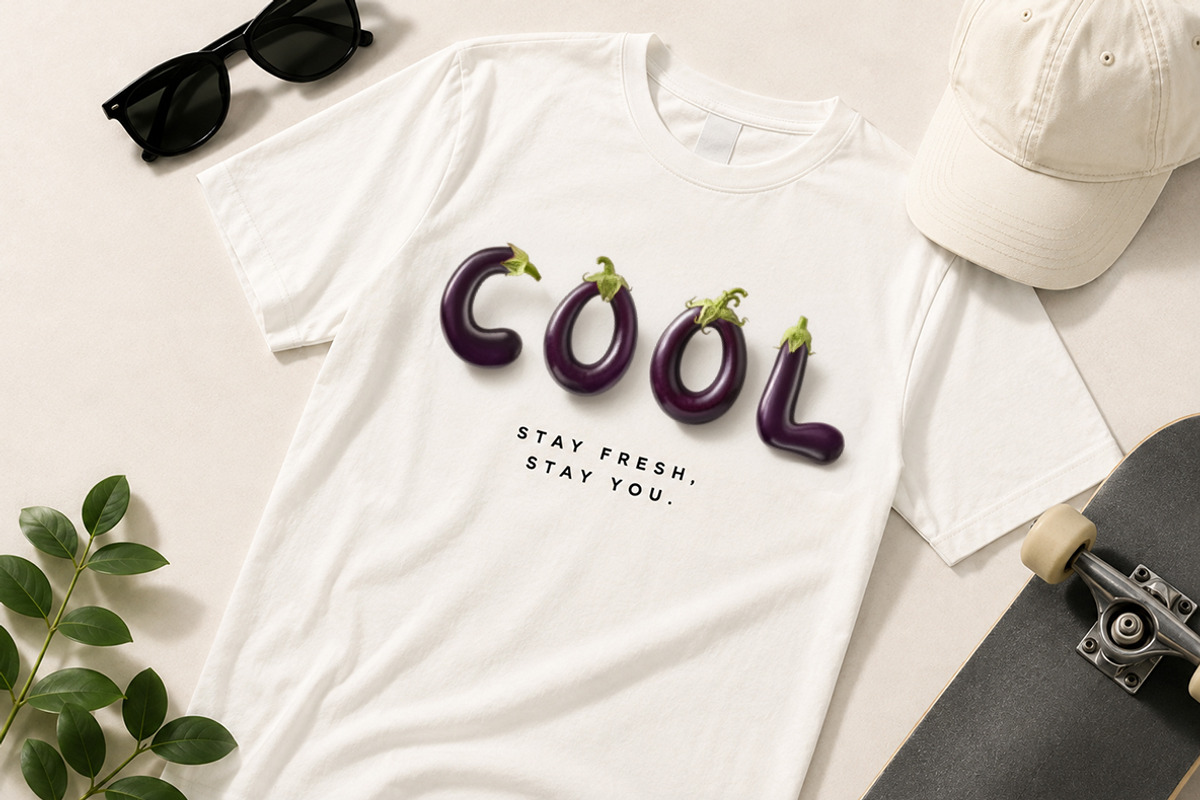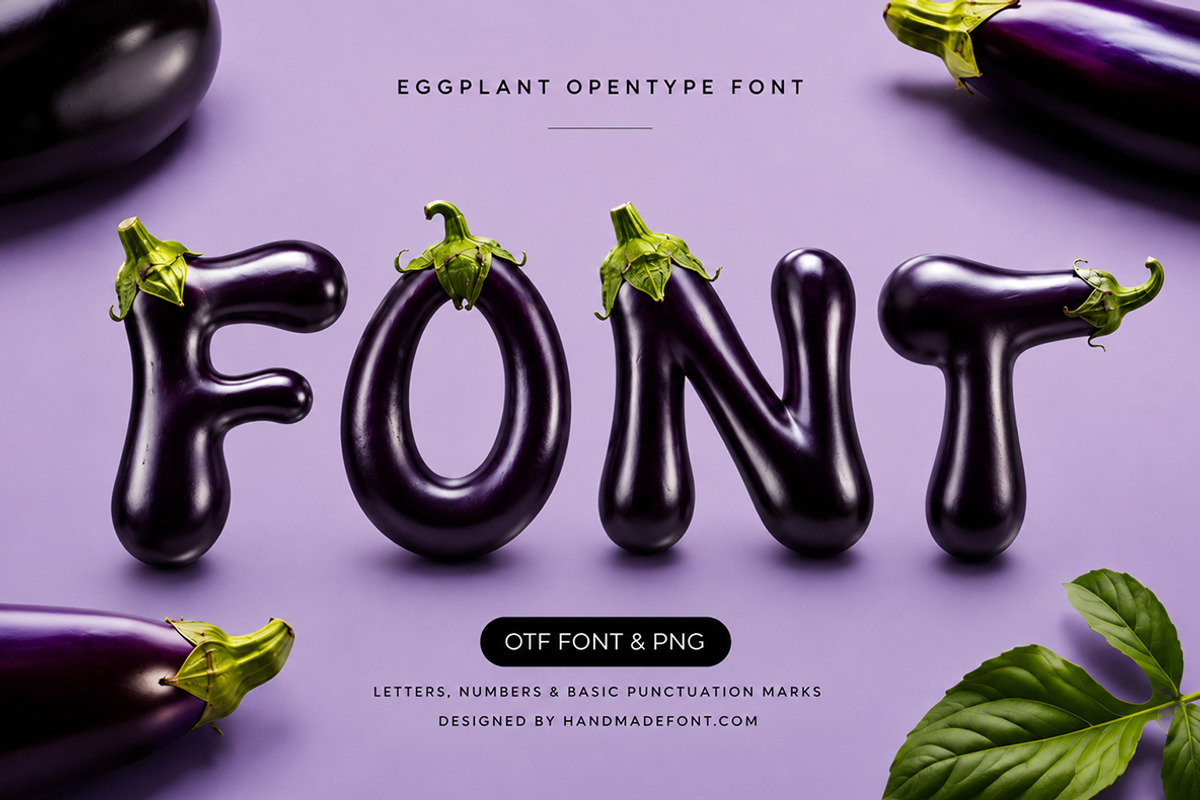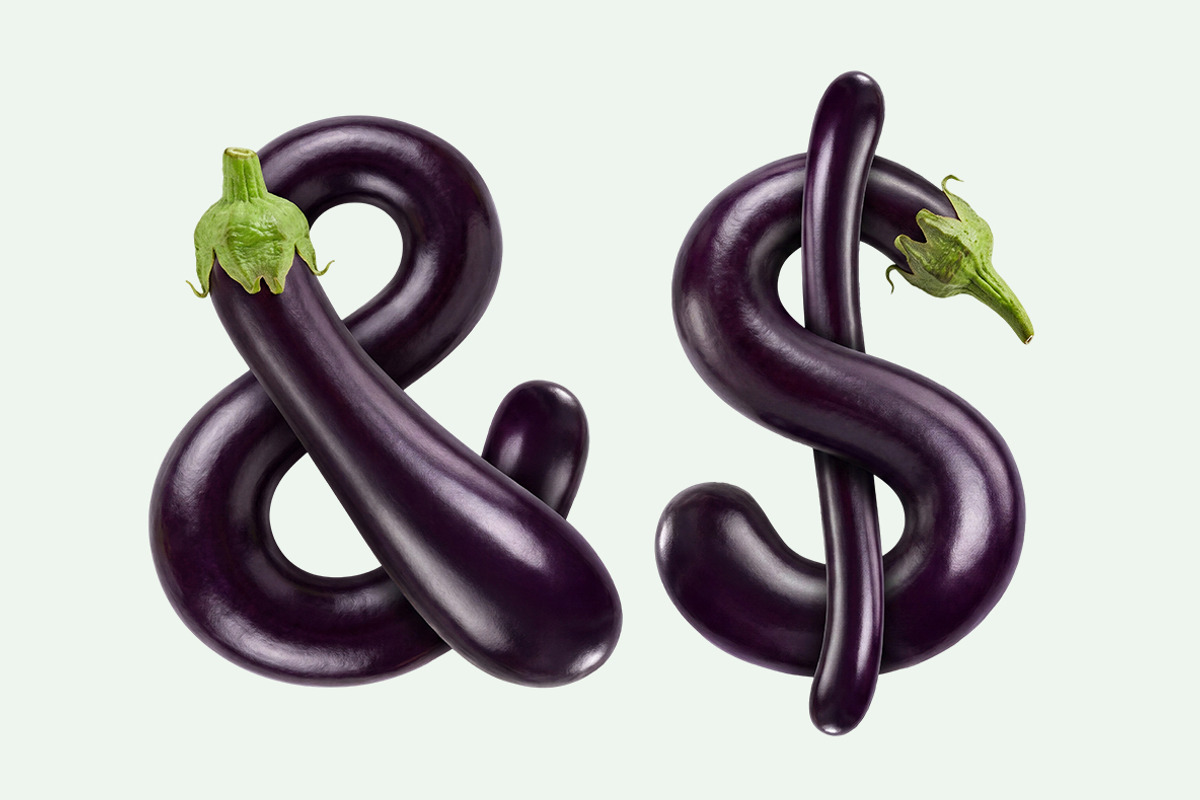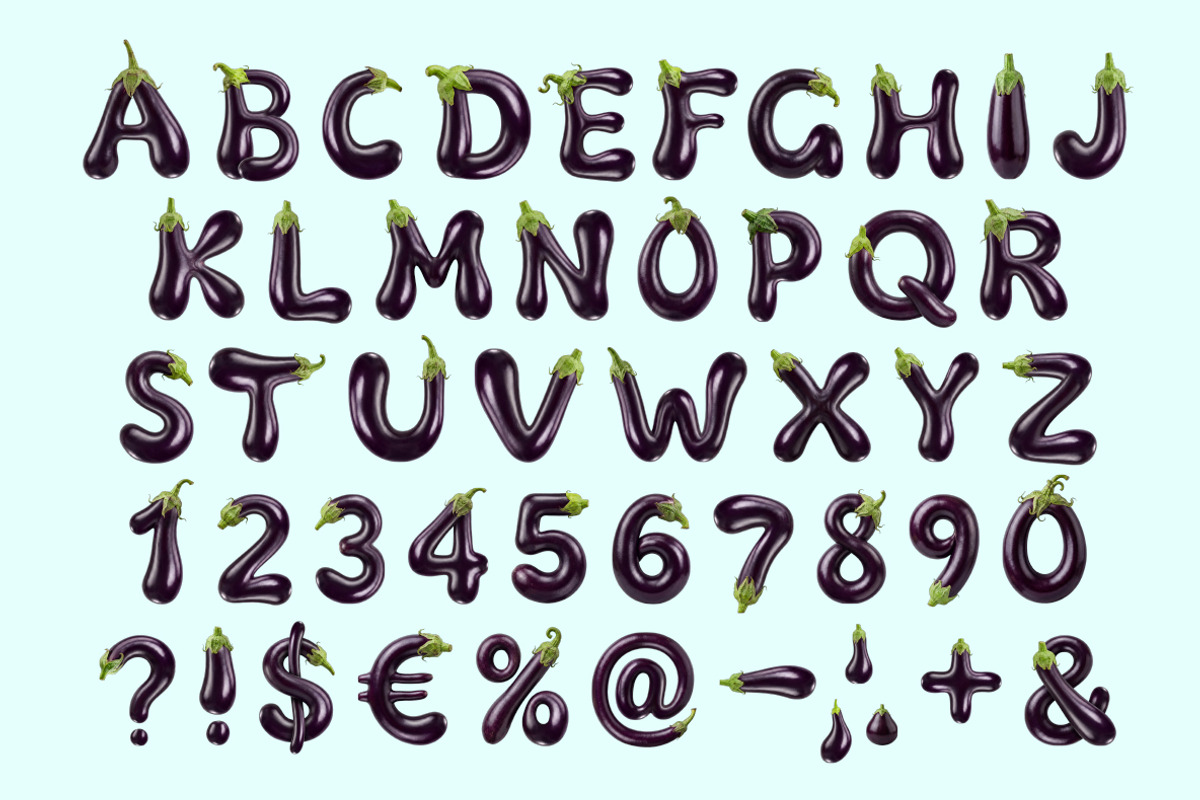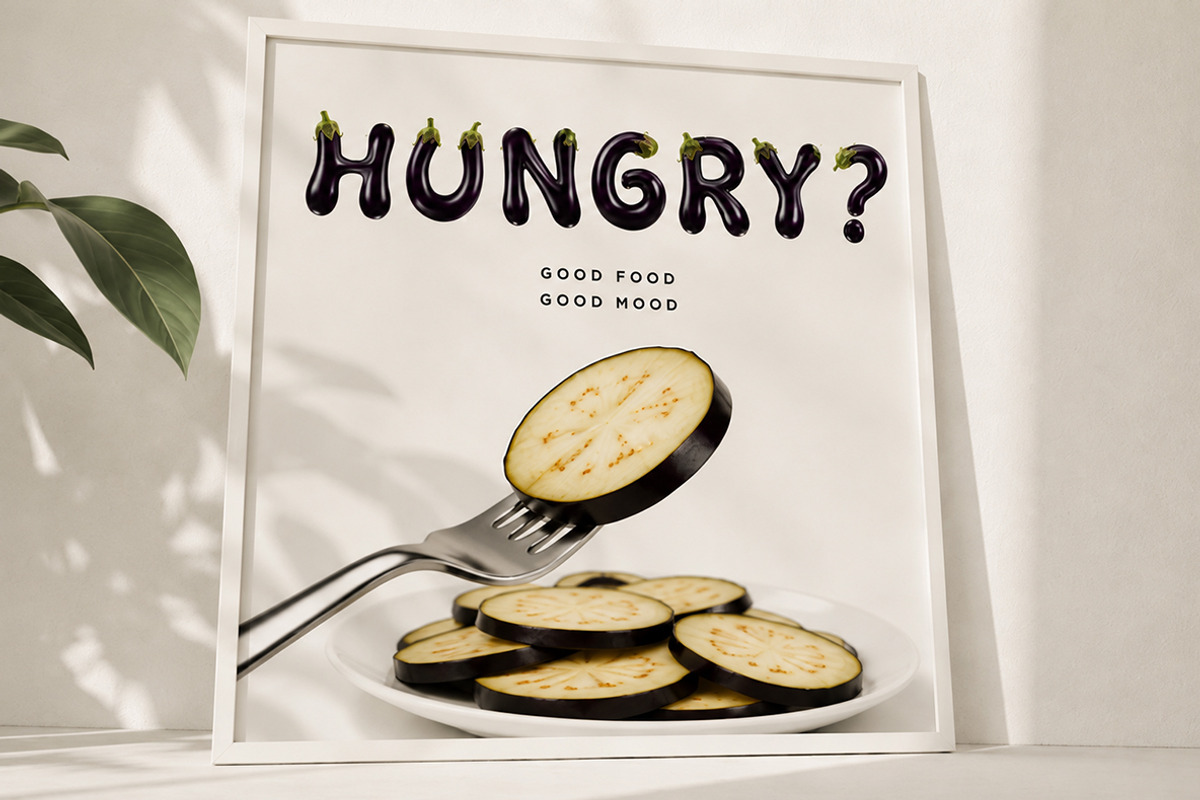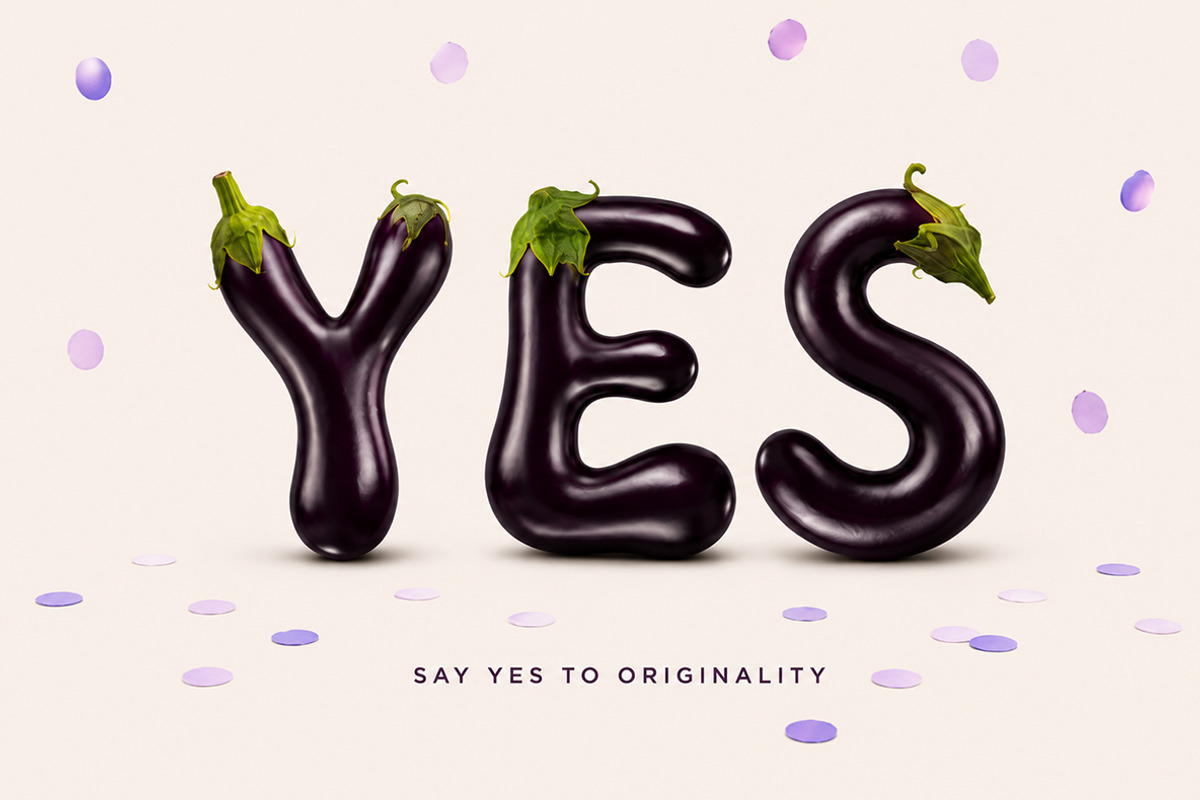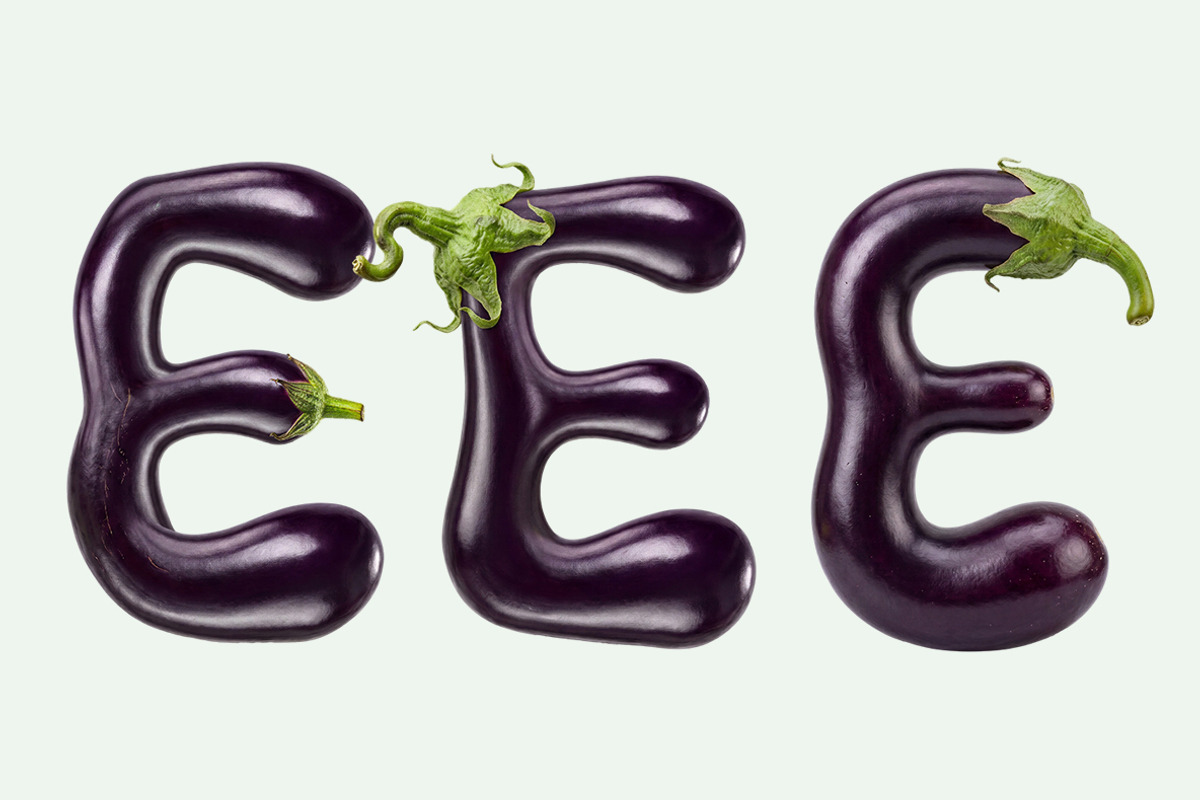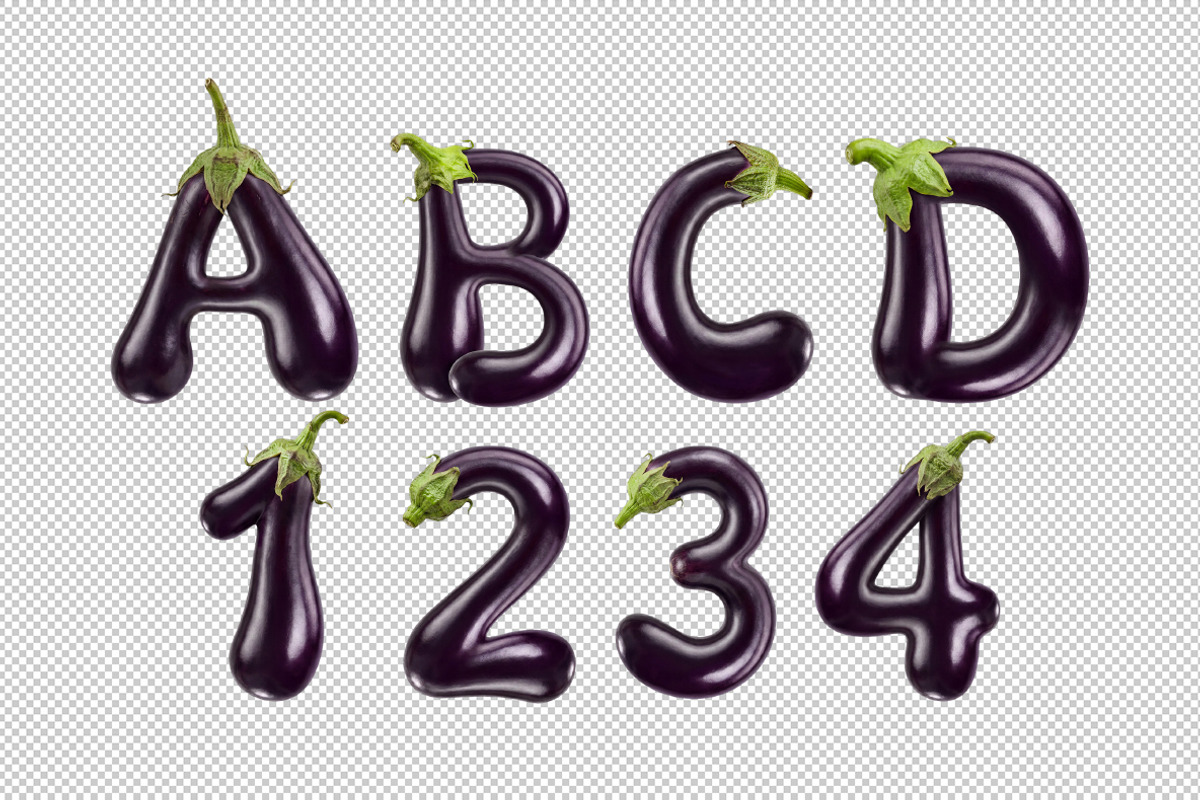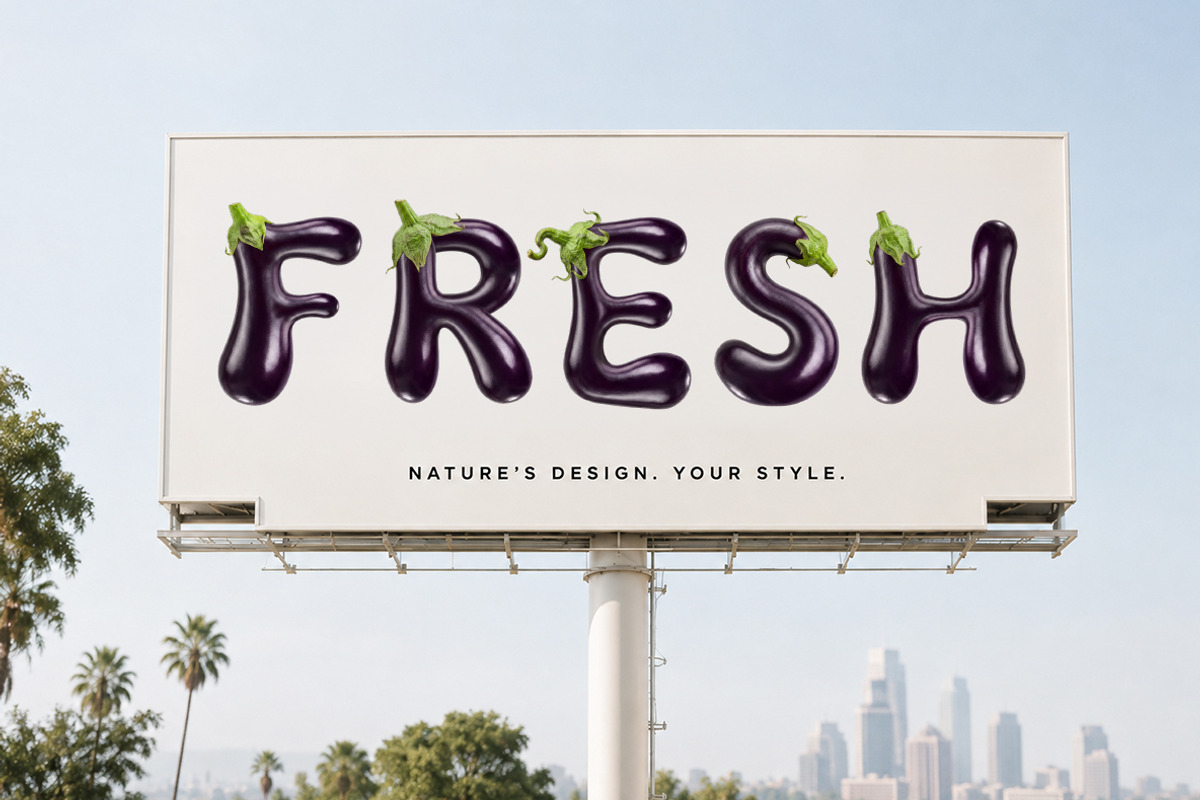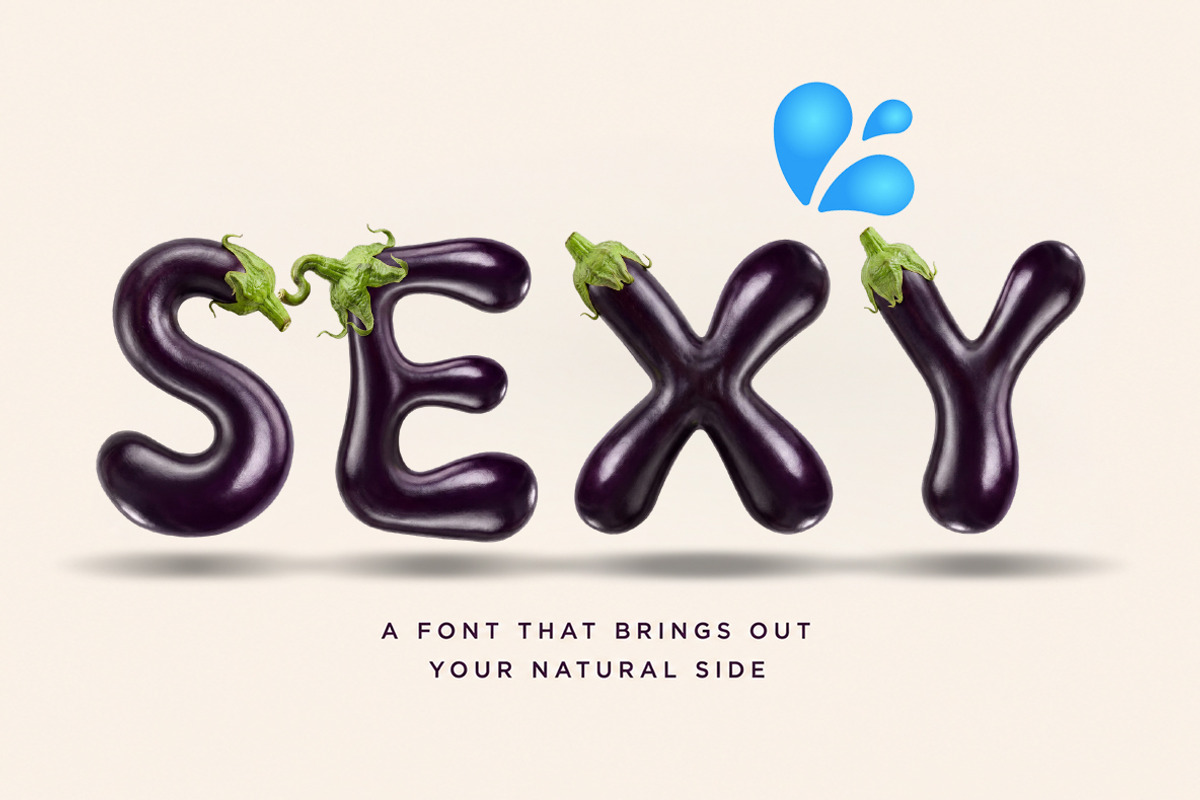
Eggplant Font
Eggplant Font is a playful typeface inspired by the smooth curves and rich purple tones of fresh eggplants. Every character is carefully designed to preserve a natural, organic appearance while remaining highly readable and full of personality. Perfect for food branding, farmers' markets, packaging, restaurant menus, social media, posters, invitations, and creative editorial projects. The package includes an OpenType (OTF) font for effortless typing and a complete set of individual PNG letters with transparent backgrounds, allowing unlimited creative freedom for custom layouts, illustrations, logos, and eye-catching designs. Add a fresh, humorous touch to every project with Eggplant Font.
Letters : A B C D E F G H I J K L M N O P Q R S T U V W X Y Z
Numbers : 0 1 2 3 4 5 6 7 8 9
Others : ! ? - . ' $ € % & #